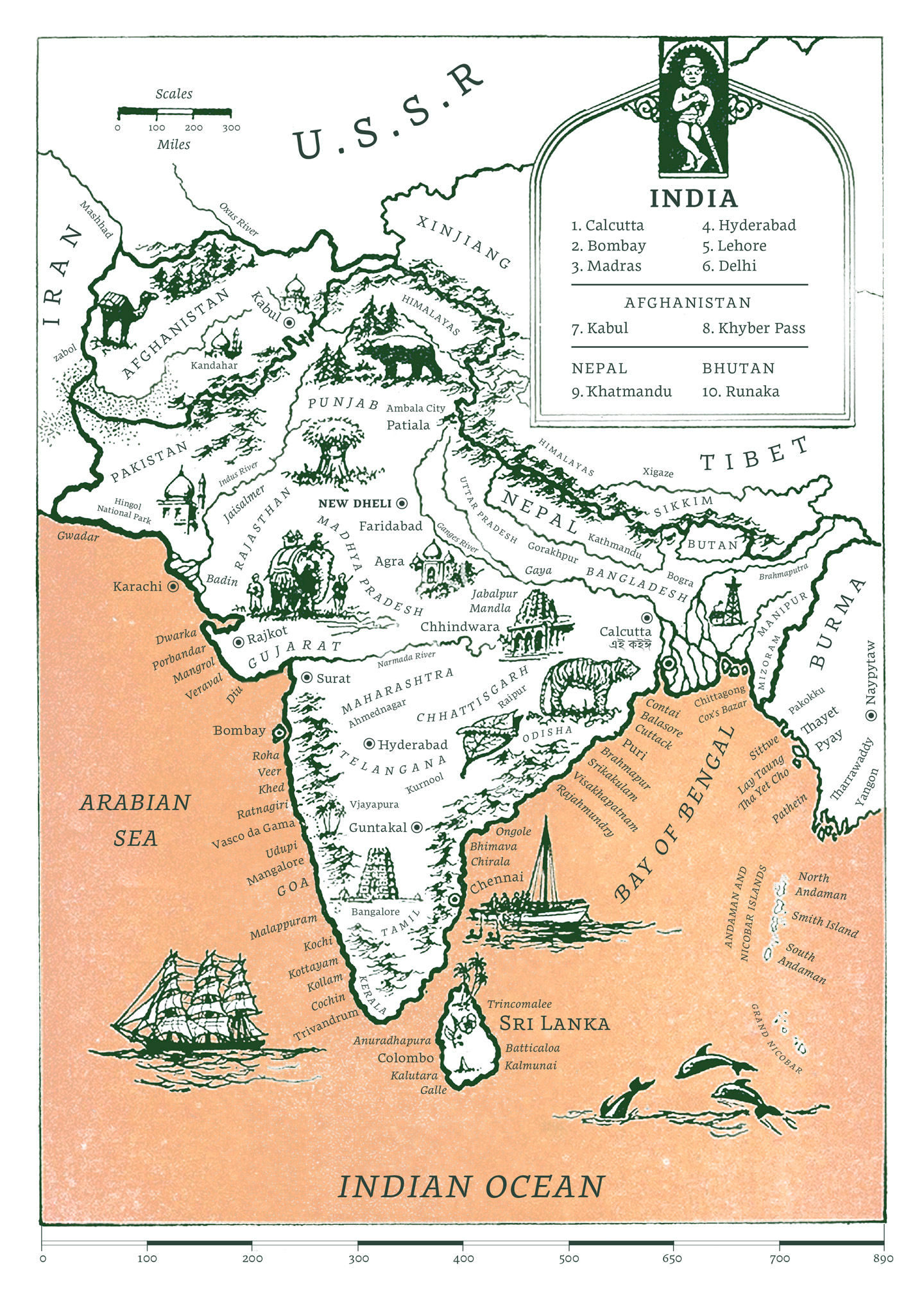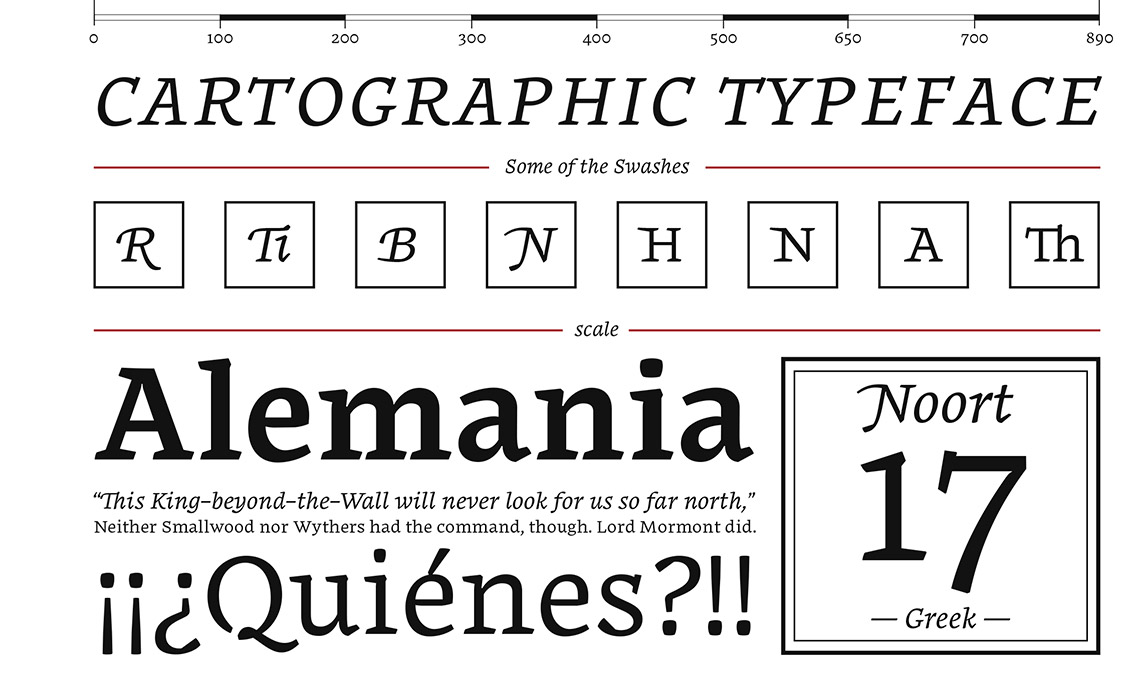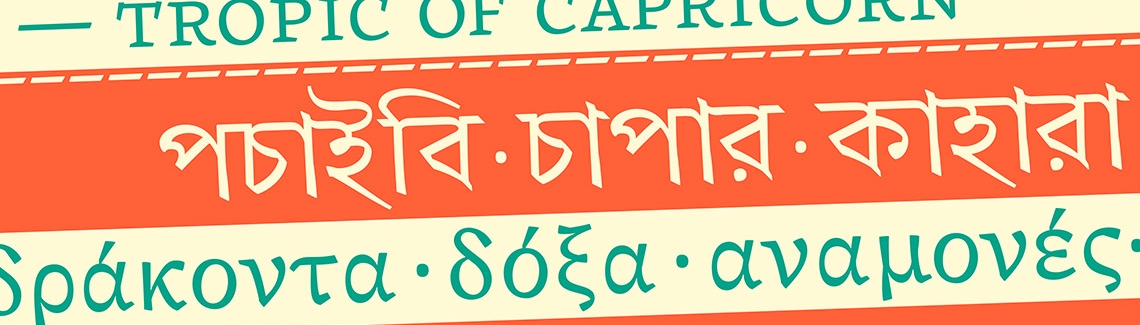
We are delighted to announce the result of the second TypeTogether Publishing Incentive Programme: Noort by Juan Bruce.
The project that most impressed our selection team was Noort, an in-progress typeface by Juan Bruce — currently an MATD student at the University of Reading. The original inspiration for Noort came from cartographic maps of the 17th century. Juan has been developing his typeface for editorial use, with a range of optical sizes to provide better performance in small text sizes. A generous x-height, long serifs, peculiar terminals, and a rough-style italic are all part of Noort’s charm. Juan’s intention is to support several languages, including Latin, Cyrillic, Greek, and Bengali.